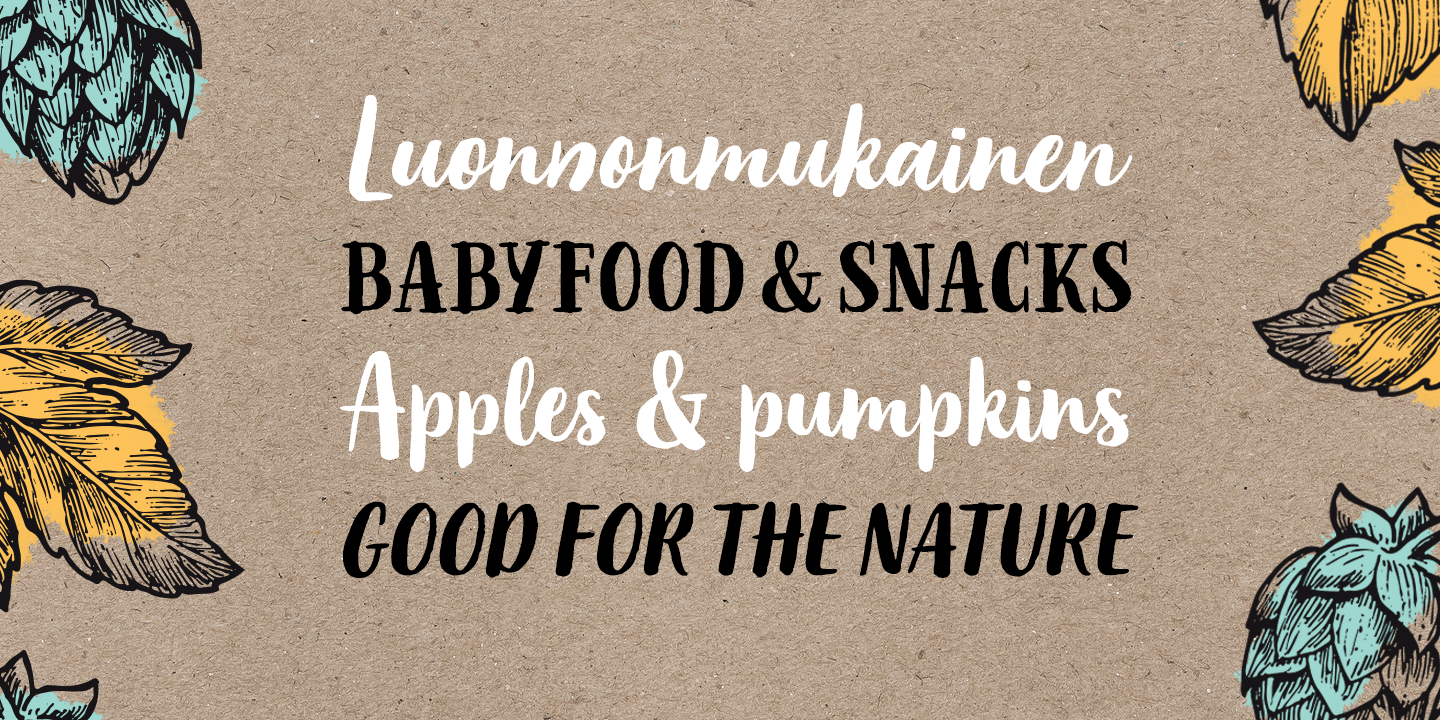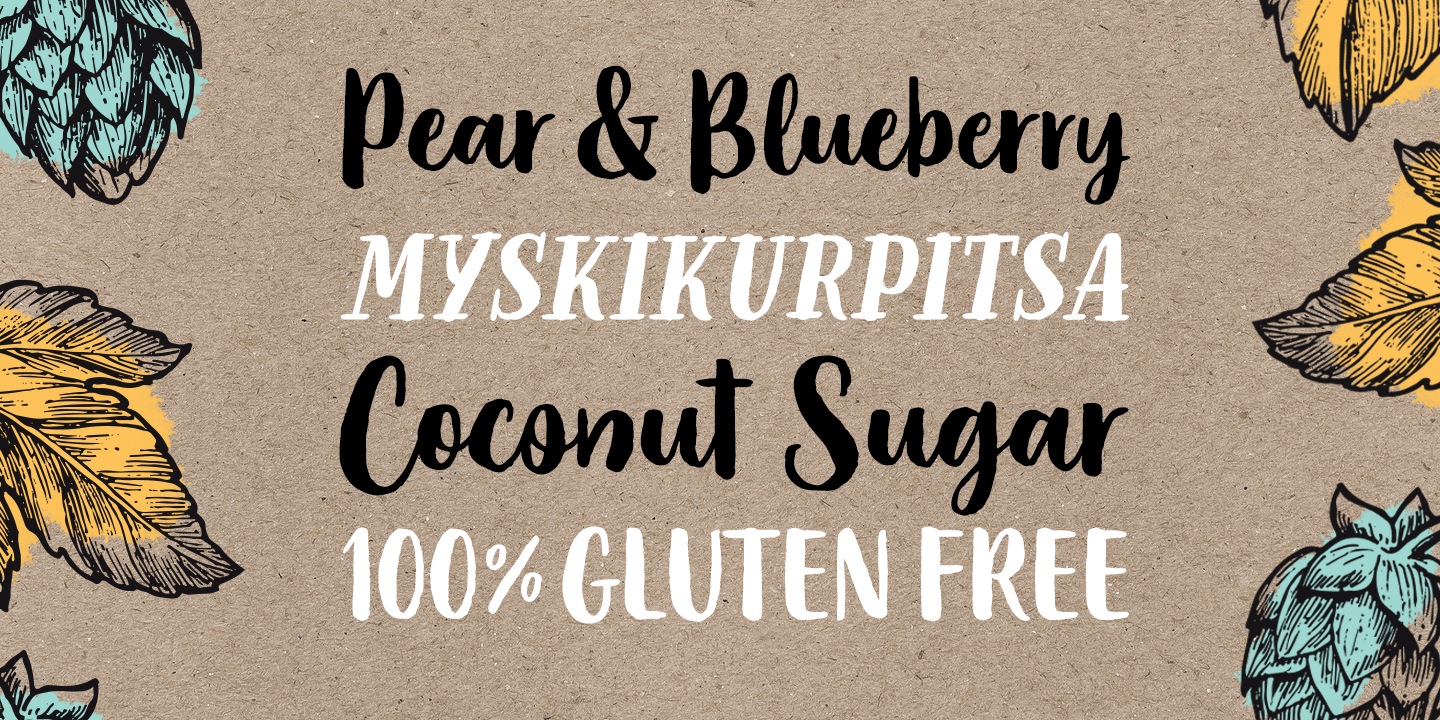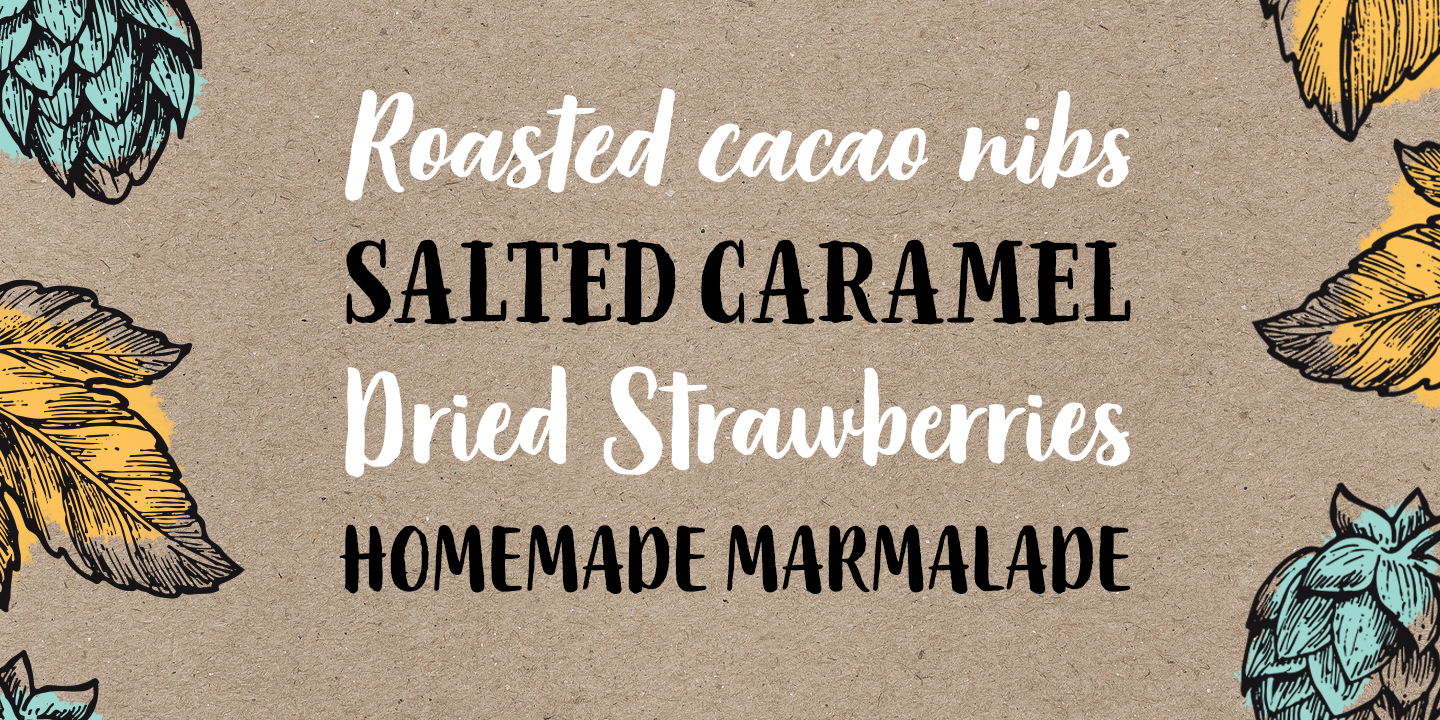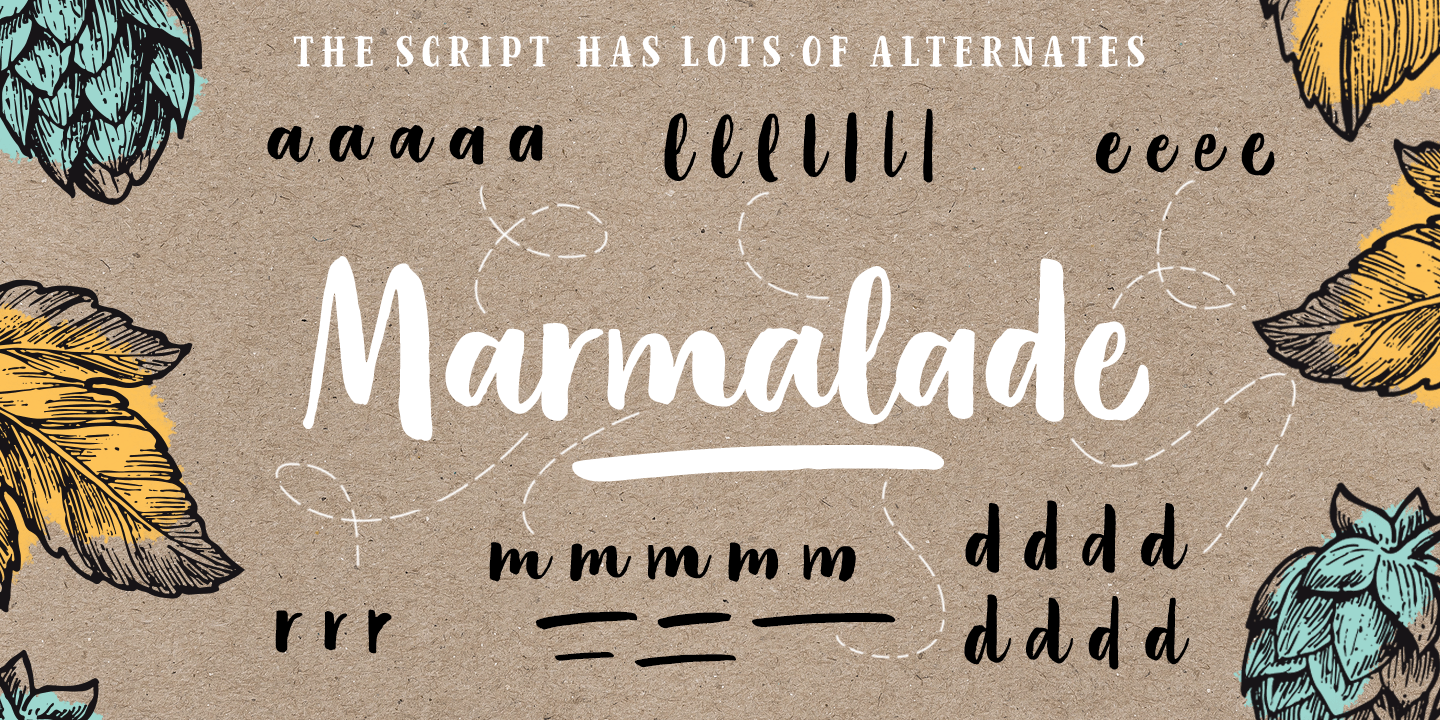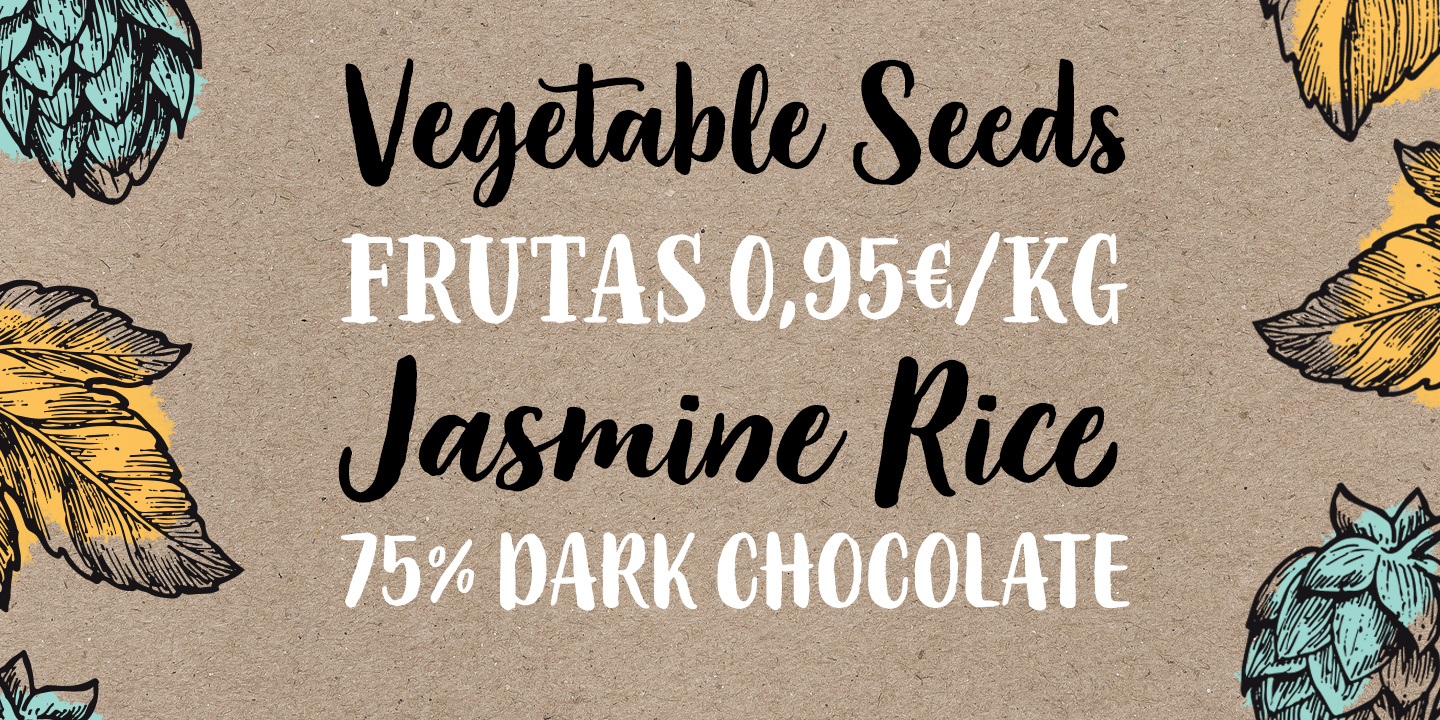
About Organika
Organika is a hand drawn type family of six fonts. It includes upright and italic brush script, sans and serif fonts. Because of the uneven edges, loose forms and bouncing letters Organika has an organic, friendly and casual feeling. The script has lots…